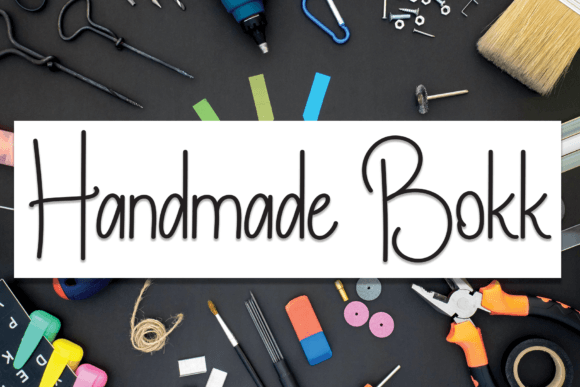
Feel the warmth of love embracing your designs with Handmade Bokk Font, a script typeface that captivates hearts with its charming personality. This sweet and smooth handwritten font exudes a touch of playfulness, making it the perfect choice for crafting wedding invitations, cards, and any design that craves a romantic and personal essence.
Immerse yourself in the delicate strokes and curves of Handmade Bokk, a font that resembles the beauty of handwritten notes. Its charming imperfections add a touch of authenticity and warmth, evoking a sense of nostalgia and heartfelt connection. Whether you're a seasoned designer or just starting your creative journey, Handmade Bokk effortlessly elevates your designs with its versatility and charm.
Picture the joy of receiving a wedding invitation adorned with Handmade Bokk's graceful letters, inviting you to a celebration filled with love and laughter. Imagine the delight of your loved ones as they read personalized cards written in this enchanting font, conveying your heartfelt messages with a touch of elegance.